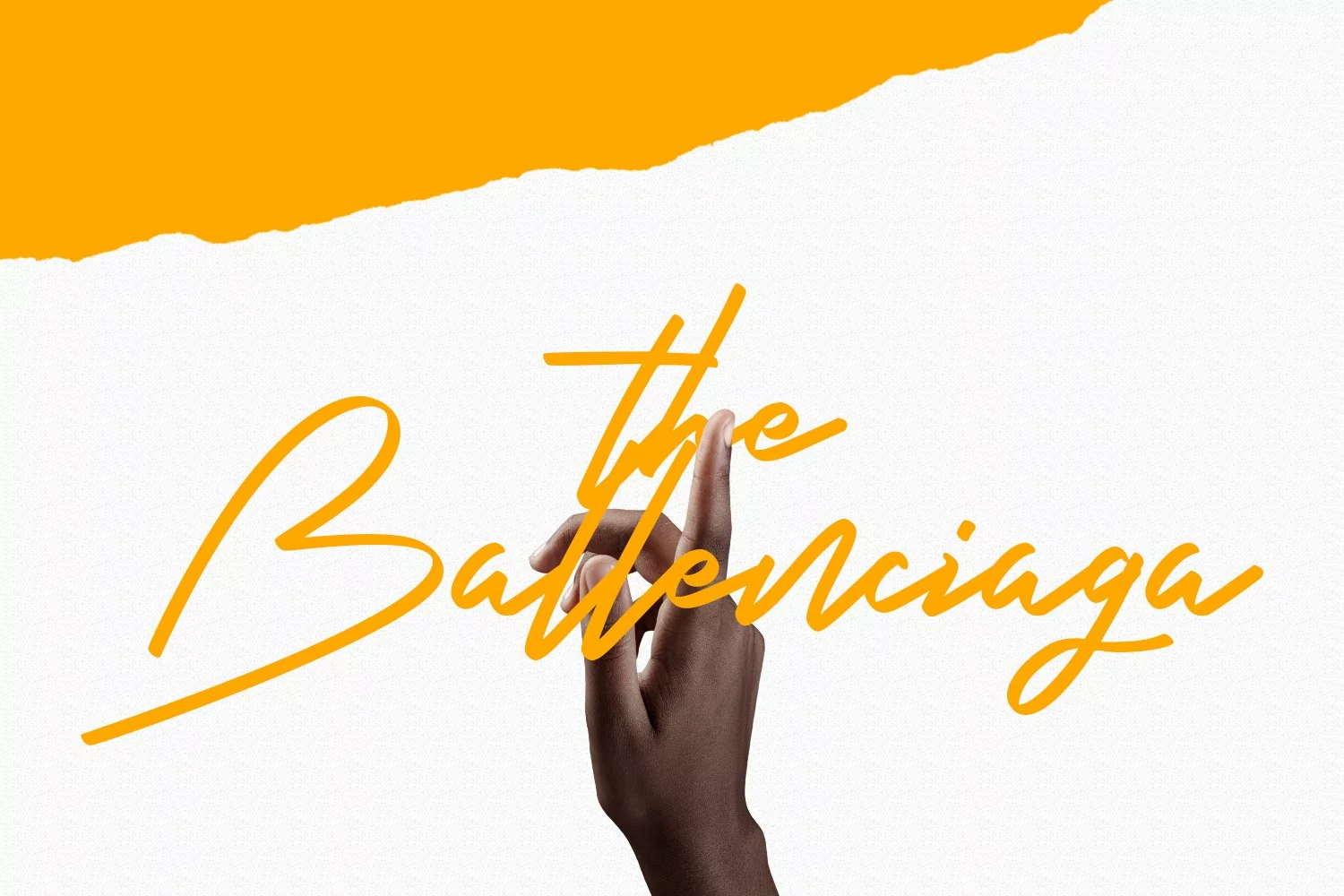
Hooney Vibes Signature Script Font
Hooney Vibes is an expressive signature script font. With medium felt tip stroke, fun character with a bit of ligatures and alternates. To give you an extra creative work. Hooney Vibes font support multilingual more than 100+ language. This font is good for logo design, Social media, Movie Titles, Books Titles, a short text even a long text letter and good for your secondary text font with sans or serif. Make a stunning work with Hooney Vibes font.